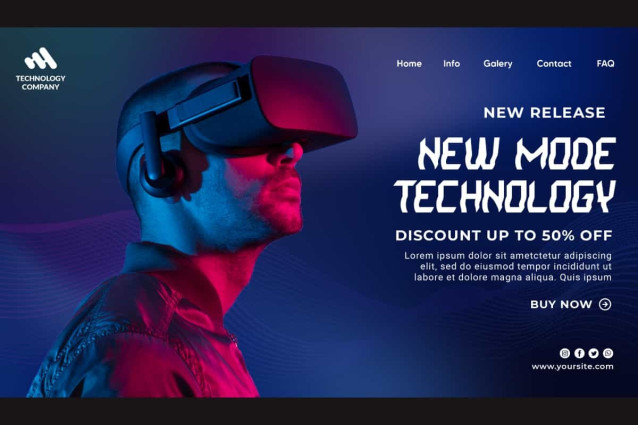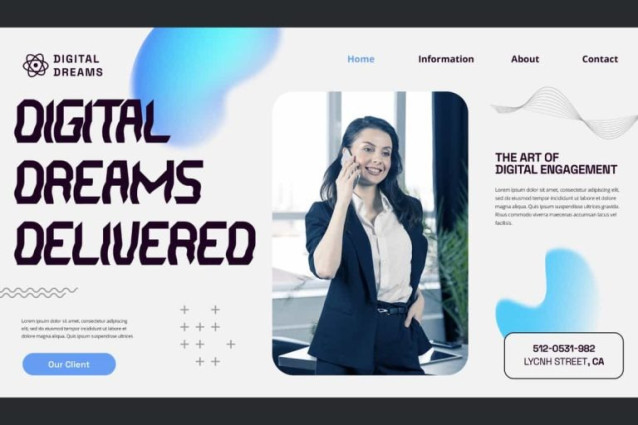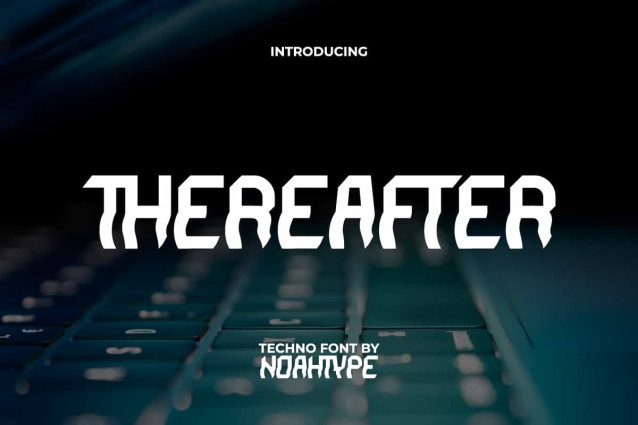
Thereafter Futuristic Font
Thereafter Futuristic Font is a a futuristic glitch gaming techno display font with a unique shape by NoahType. This simple style font has a techno touch that makes it special for your designs. It will be good for any designs, such as custom design, label, brand image, invitation, marketing material, menu, poster, product packaging, quotes, signage, stationery, web, and many more!
Thereafter Font includes a complete set of Uppercase and Lowercase Basic Characters with different looks for both, Numerals, Punctuation and Symbol. The characters of this font will give futuristic look and also a perfect choice for many industries, such as fashion, accessories, advertising, event or festival, game, movie, photography, printing, publishing, etc.